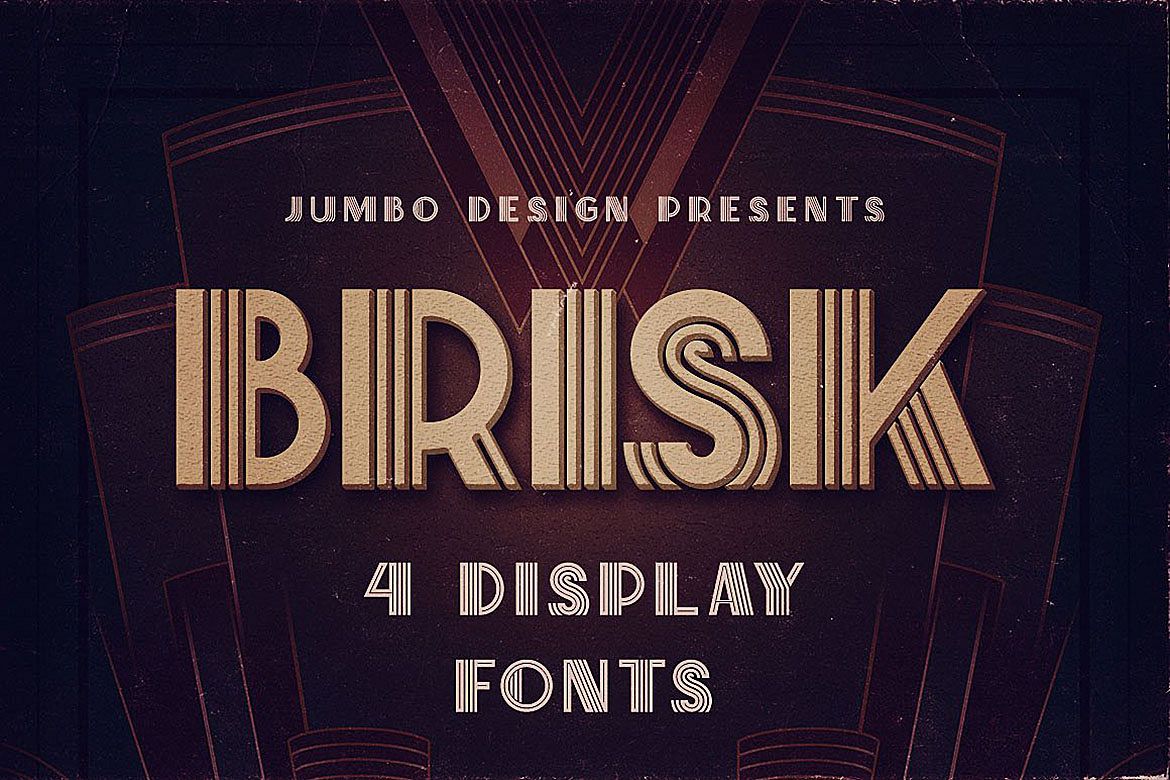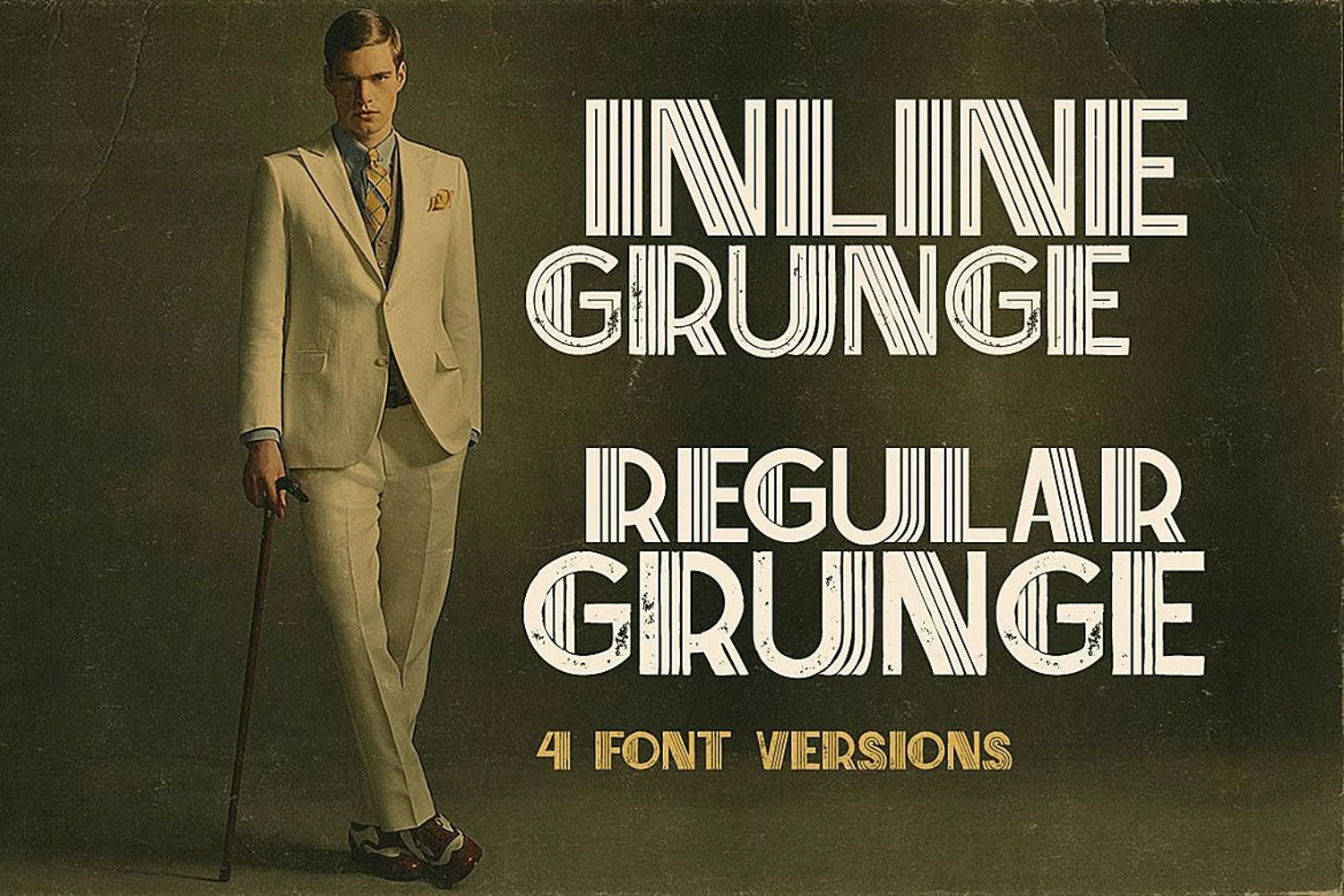
Brisk - ArtDeco Display Font
Unique artdeco, vintage or retro style custom font with 4 styles: regular and grunge, inline and inline grunge! With unique geometric style.